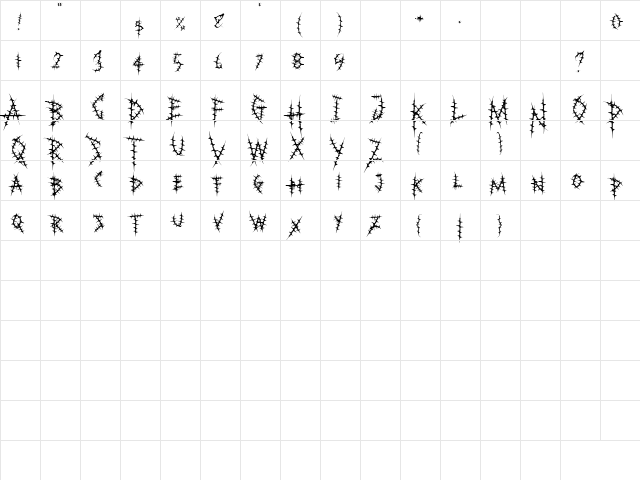
Bloody Durian Regular
Design Context for Bloody Durian Typeface
Bloody Durian leans into the macabre with letterforms designed to disturb and intrigue in equal measure.
Perfect for anything that needs to unsettle — game titles, horror branding, and macabre invitations.
Font Pairing: Pair with a clean neutral sans-serif for body copy to let Bloody Durian's character lead without overwhelming the composition.
Pro Tip: Use Bloody Durian at larger display sizes for maximum impact. Consider generous tracking to let the disturbing character of each letterform breathe.